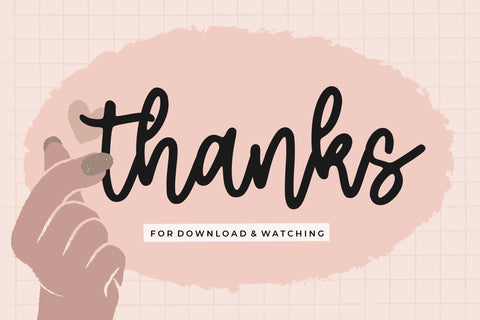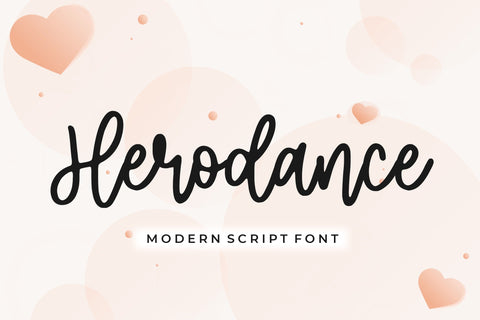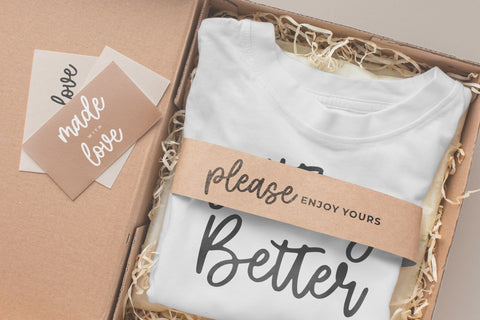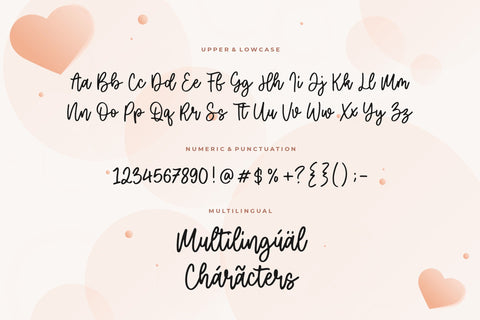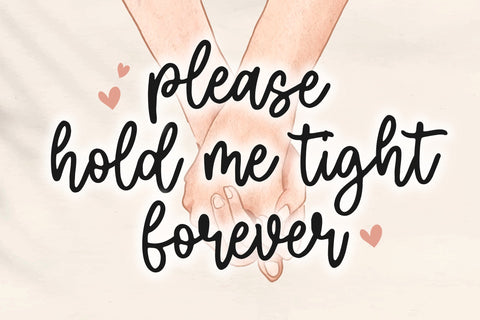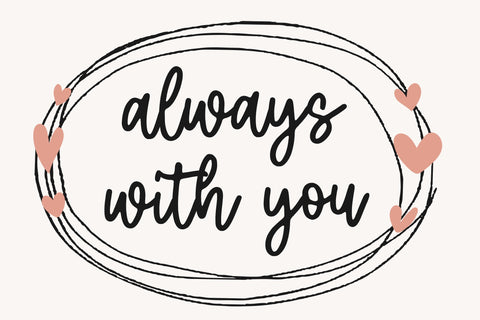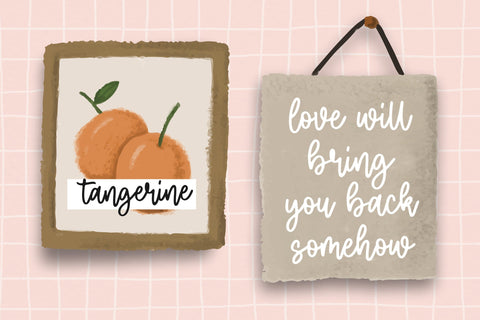
Herodance Modern Script Font
Proudly Present, Herodance Font.
Herodance is a Modern Script Font.
Herodance is a modern and asymmetrical script font. It looks distinct on greeting cards, thank you cards, quotes, logos, business cards and every other design which needs a customized touch.